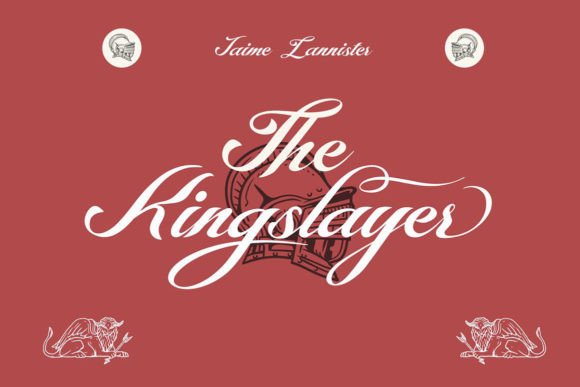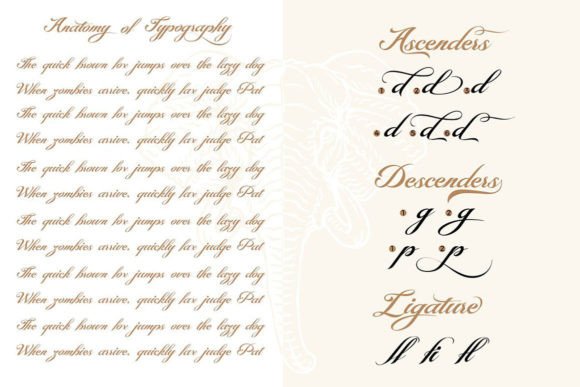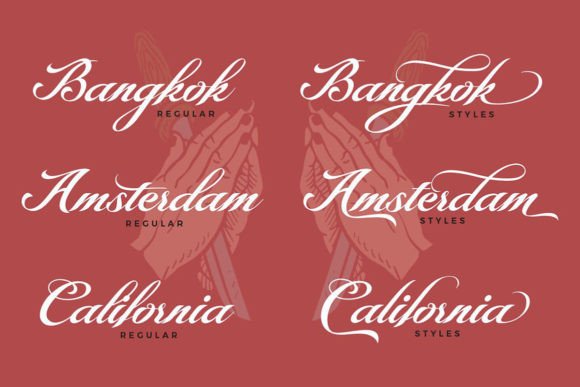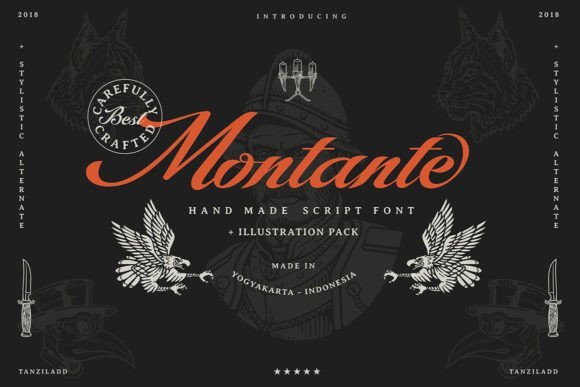
Introduction to Montante Font
Montante is a retro and stylish script font is perfect for creating modern and sophisticated designs.
Its chic curves and lines add a unique flair to any project Its classic style gives it a timeless elegance.
Key Features of Montante Font
Why Choose Montante Font?
Montante Font offers exceptional quality and versatility, making it a valuable addition to your design toolkit. Whether you’re creating for personal projects or commercial use, Montante Font delivers professional results.